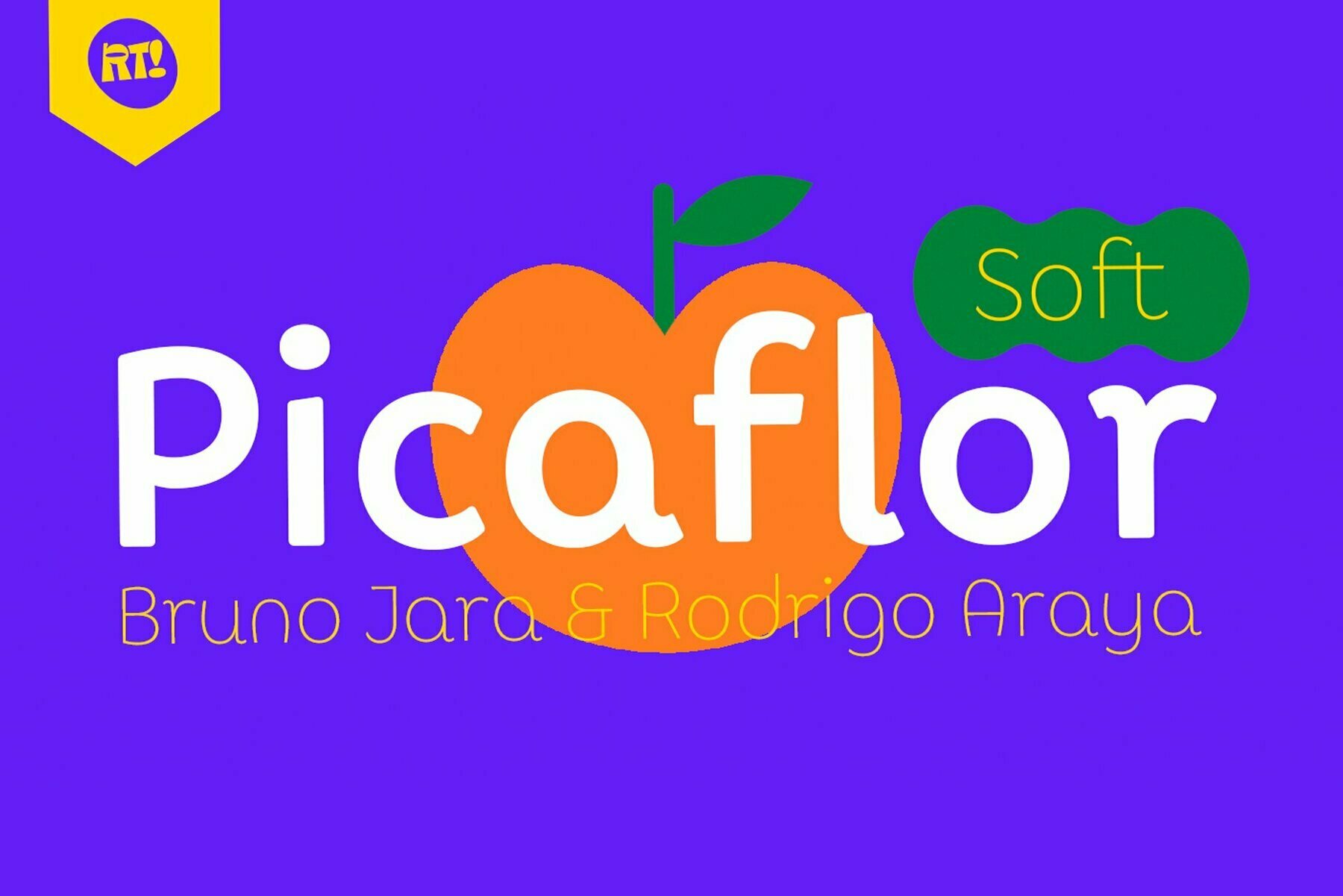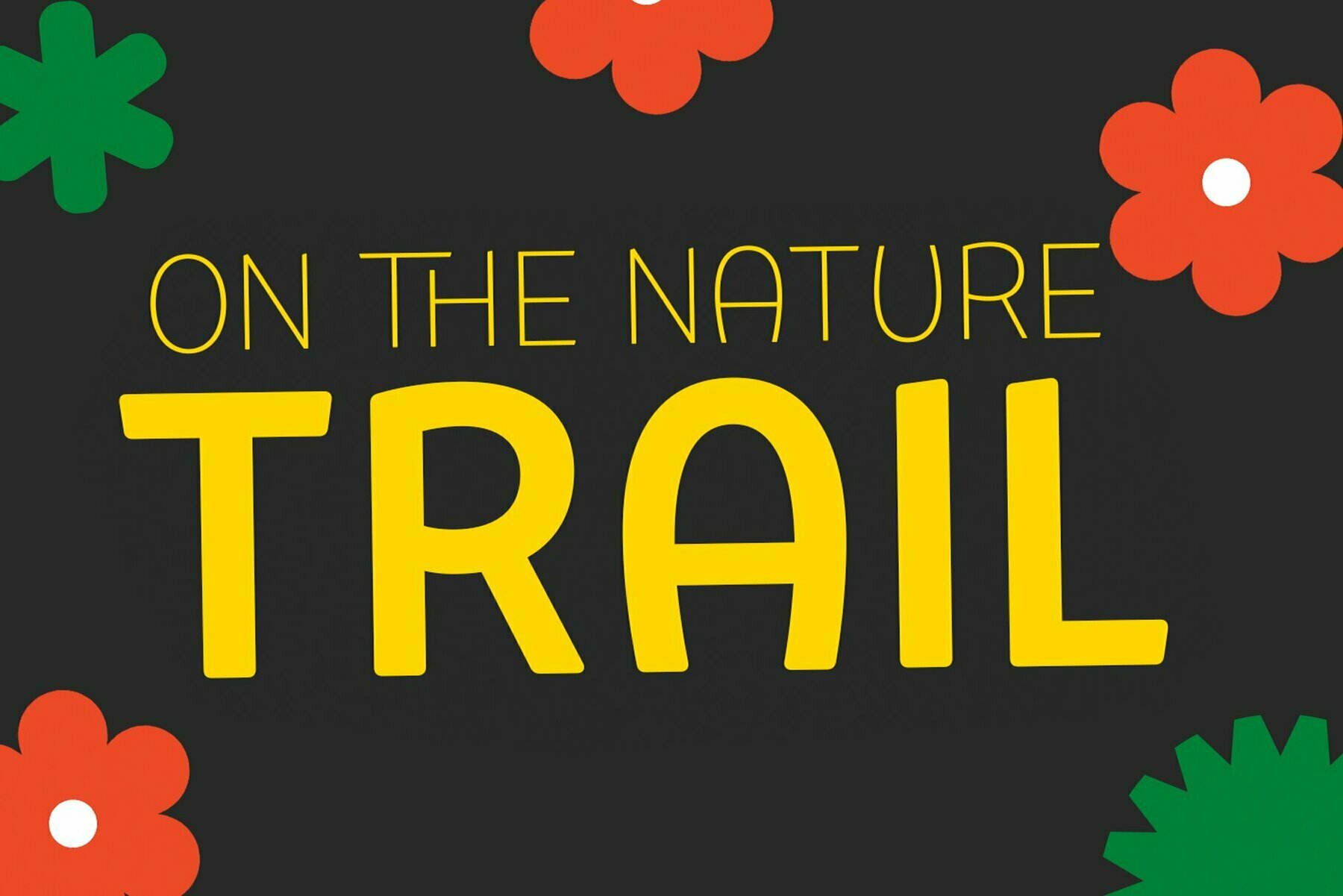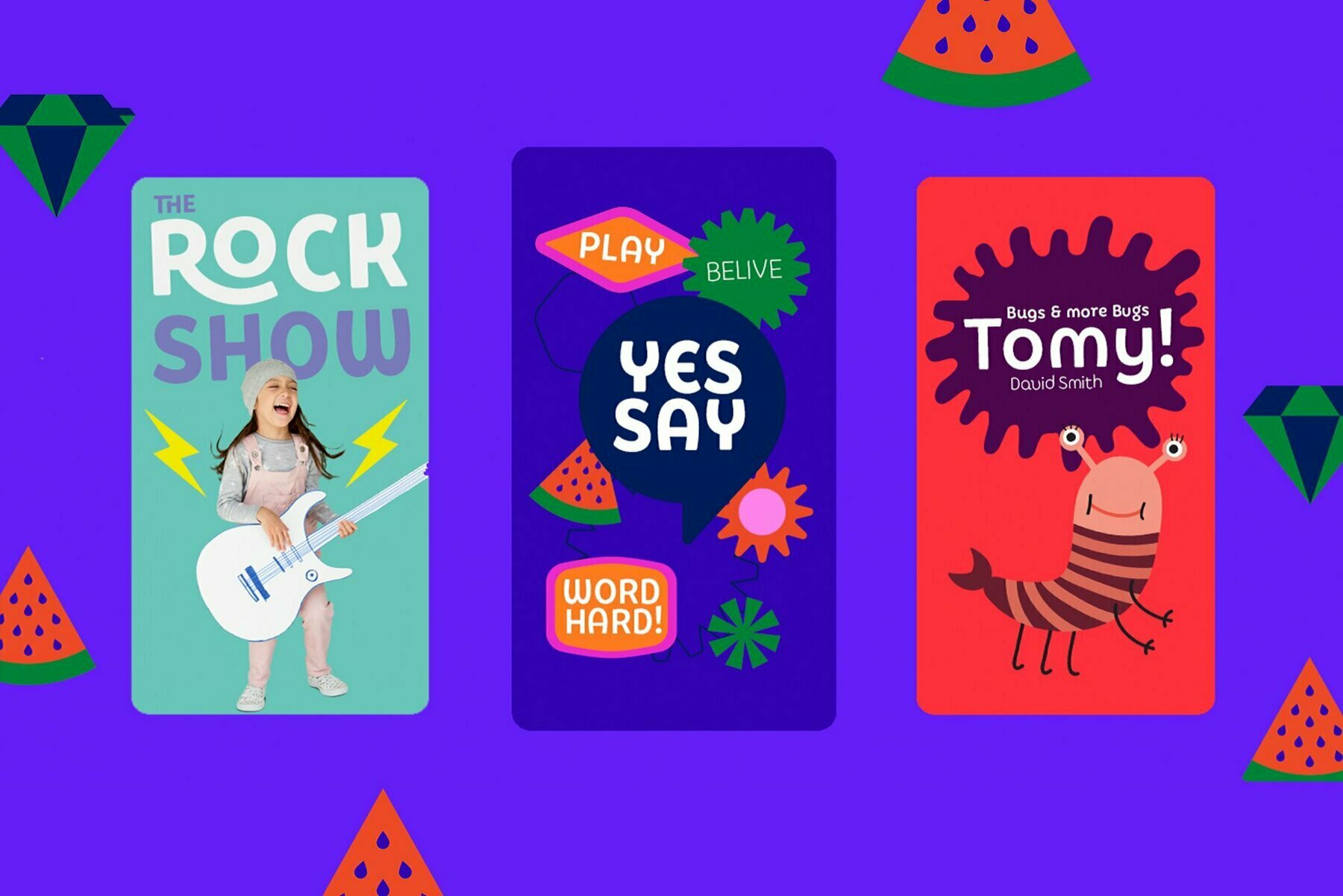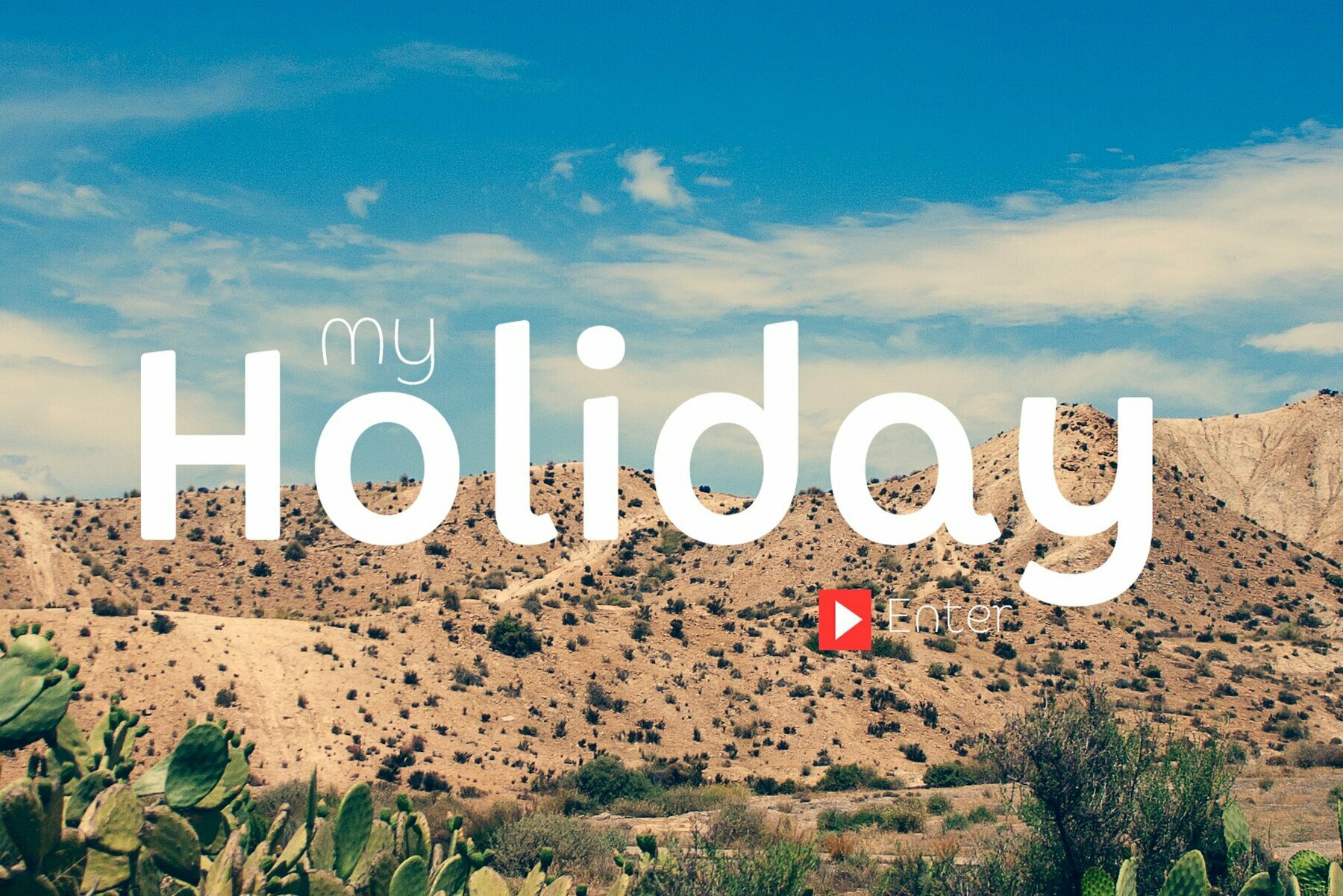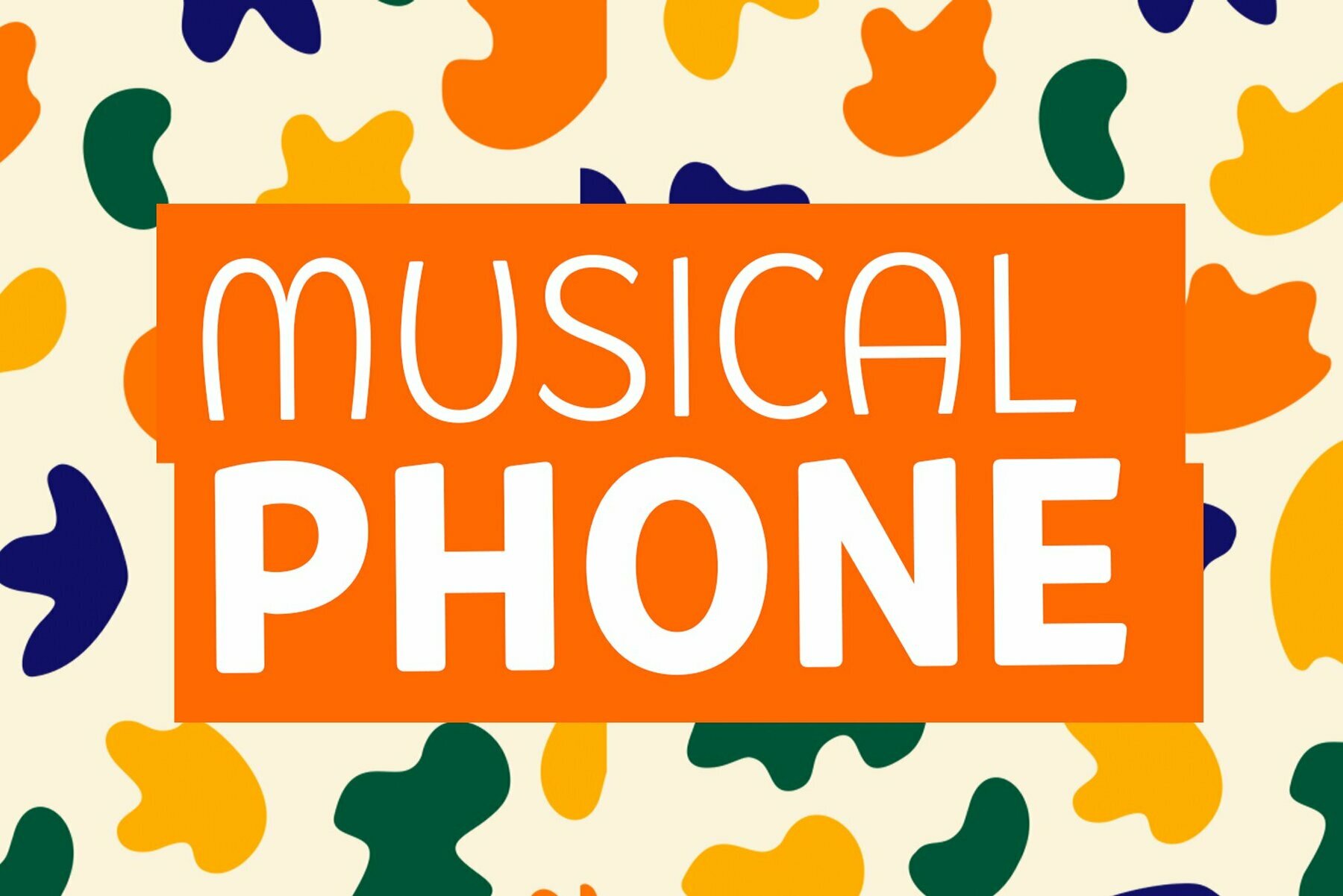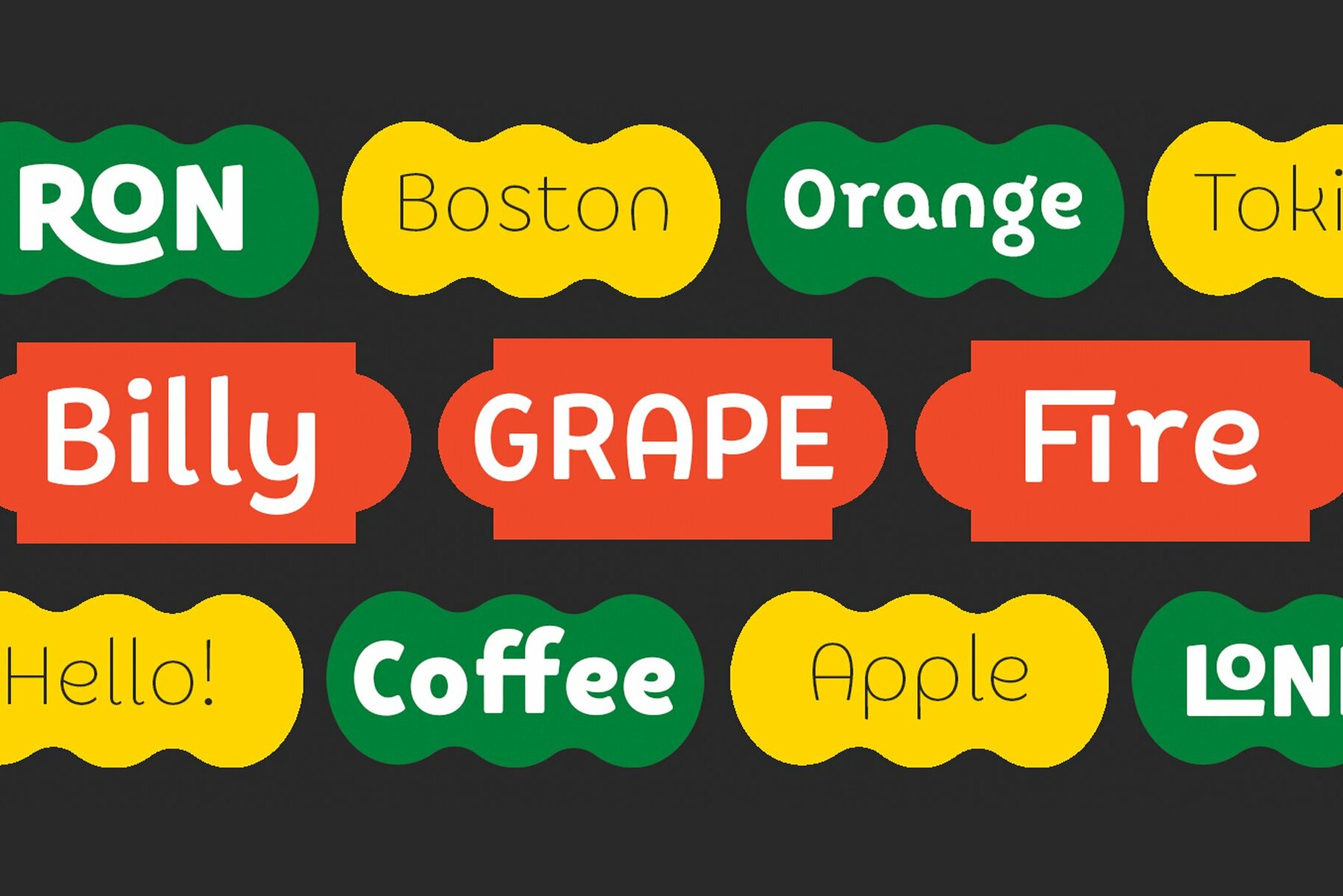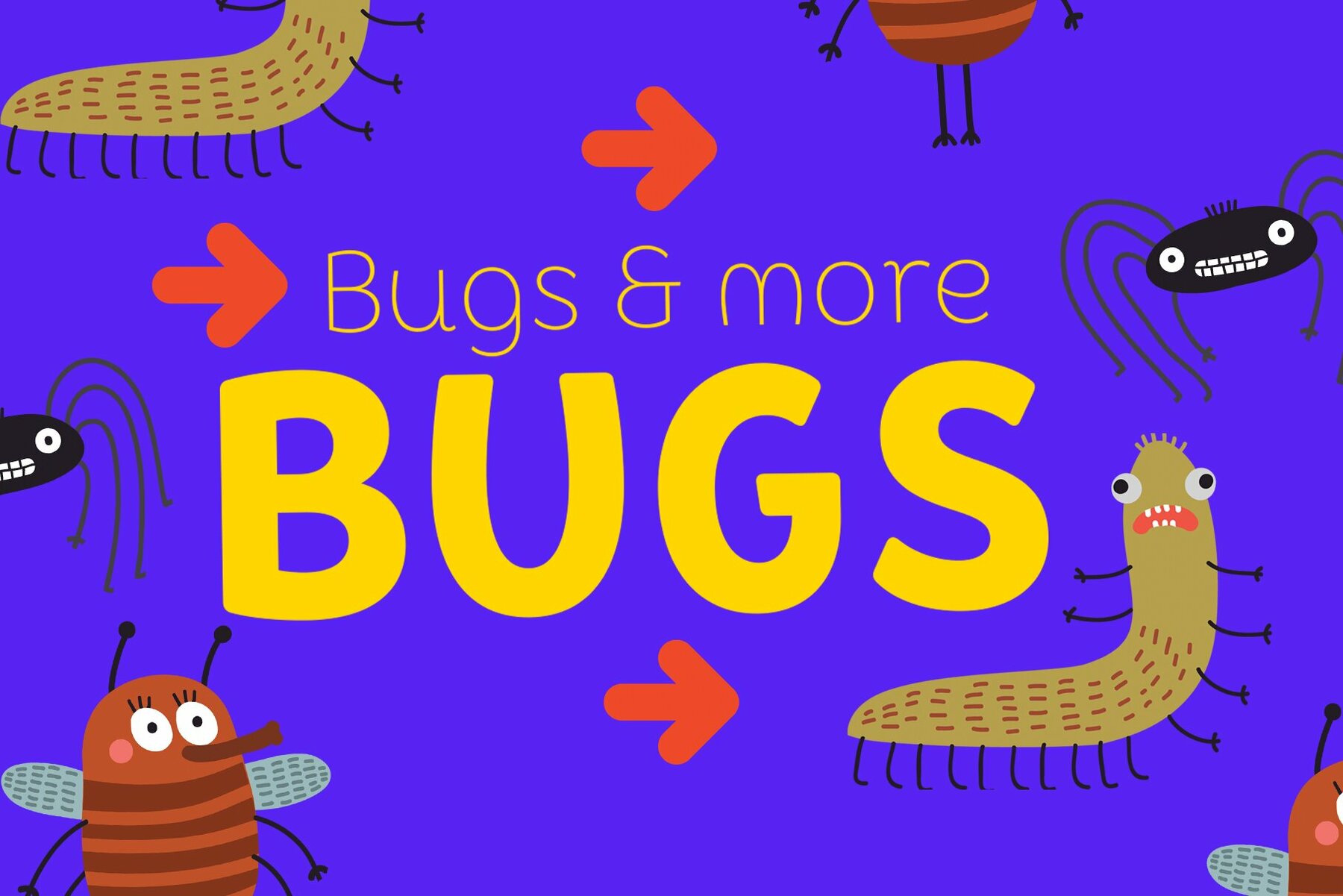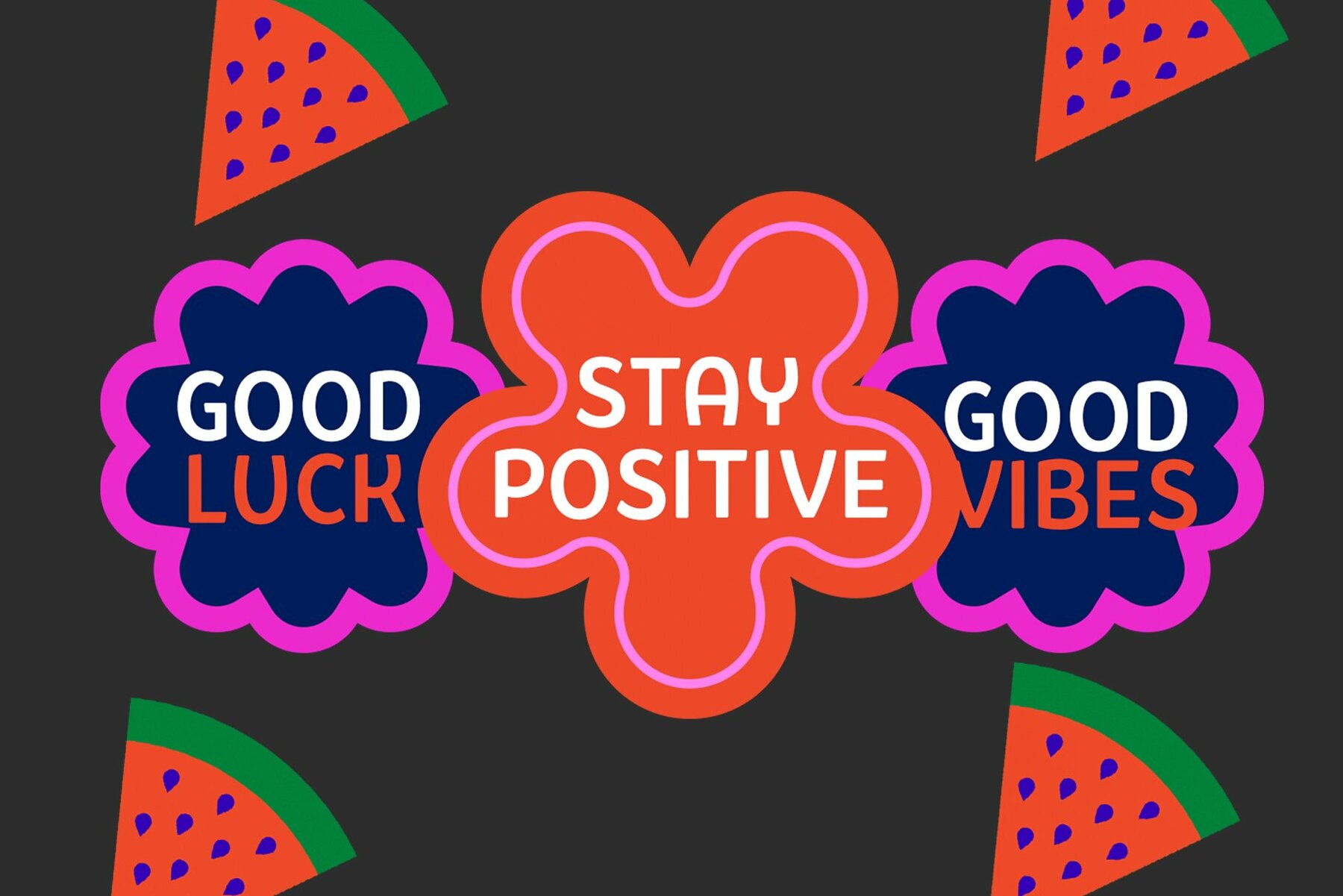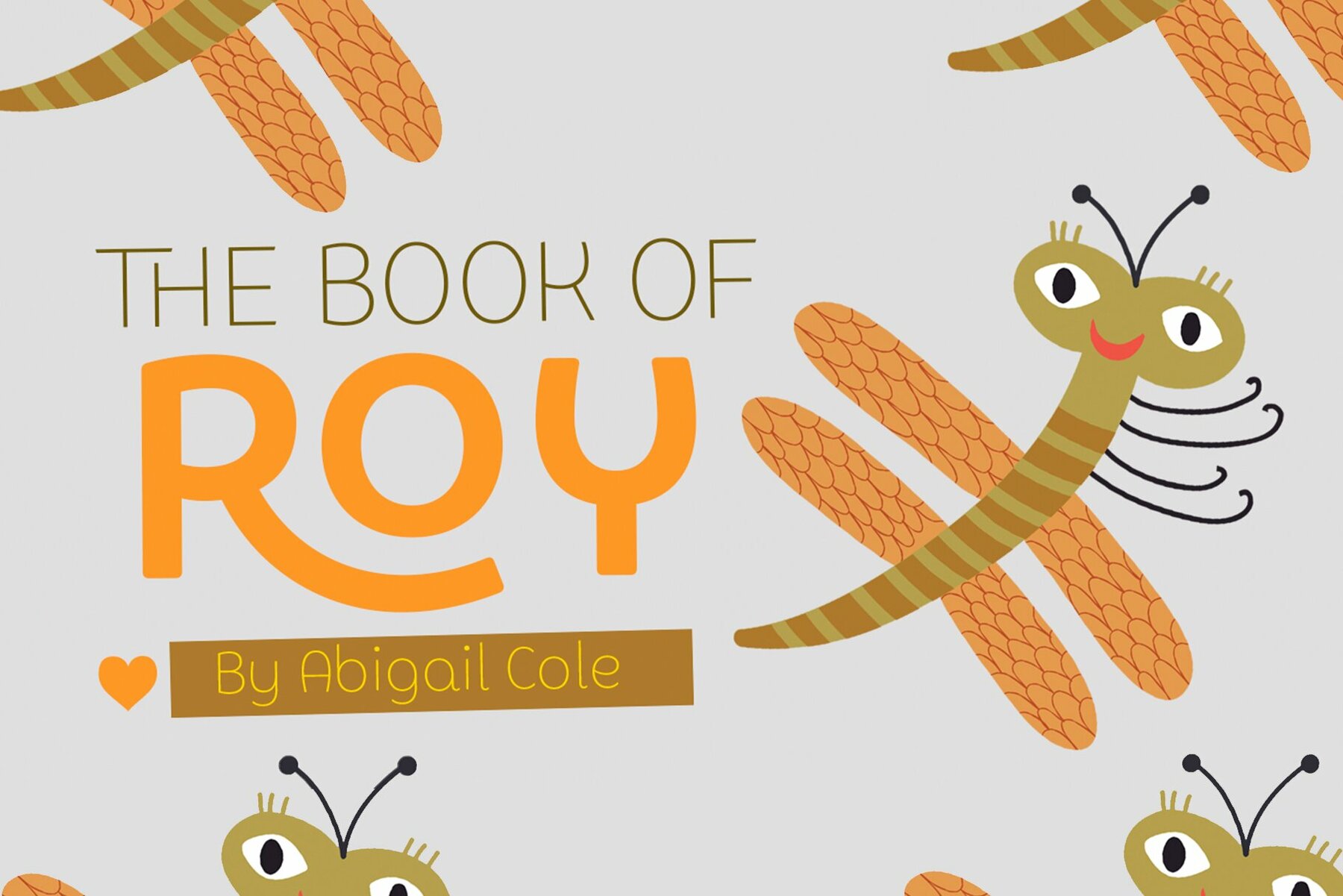
Picaflor Soft Font
Picaflor Soft presents itself as a refined iteration of its predecessor, Picaflor. This rounded typeface is crafted for headline excellence, offering a spectrum of styles that range from Thin to Black. Designed to catch the eye, Picaflor Soft is an ideal choice for creating distinctive and memorable titles.Picaflor Soft: Rounded Charm for Captivating Titles